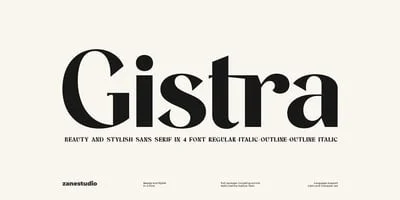
Gistra Font
Gistra Font is ideal for modern tech startups, data visualization platforms, scientific research publications, analytical software interfaces, digital innovation campaigns, contemporary business presentations, clean corporate identity, progressive web design, information architecture projects, and systematic applications that require precision clarity and intelligent design sophistication.
What makes Gistra Font truly exciting is its perfect synthesis of analytical precision and contemporary elegance that creates an ideal typeface for data-driven communication and intelligent information design. This exceptional typeface combines systematic clarity with modern sophistication, featuring clean letterforms and organized character structure that convey both technical competence and design intelligence. The font's analytical personality and data-focused reliability make it perfect for organizations seeking to communicate expertise, clarity, and the sophisticated presentation of complex information in accessible and visually appealing formats.
The Gistra Font family includes multiple weights and styles: Thin, Light, Regular, Medium, Bold, and Black variations designed for optimal data communication. Each family member maintains the distinctive analytical character while offering complete flexibility for complex information hierarchies and systematic branding applications. The comprehensive character set supports technical typography needs and data design elements, making it suitable for international analytical communications.
When you choose Gistra Font, you're selecting a typography solution that delivers analytical excellence and intelligent design sophistication to every data-driven project. This systematic typeface excels in applications where clarity and precision are fundamental, delivering exceptional information organization while maintaining contemporary appeal. Whether you're designing tech platforms, analytical interfaces, research materials, or data-focused campaigns, this font provides the intelligent clarity and systematic excellence that resonates with professionals who appreciate precise communication, organized information, and the sophisticated presentation of complex data in clear, accessible, and visually compelling formats.